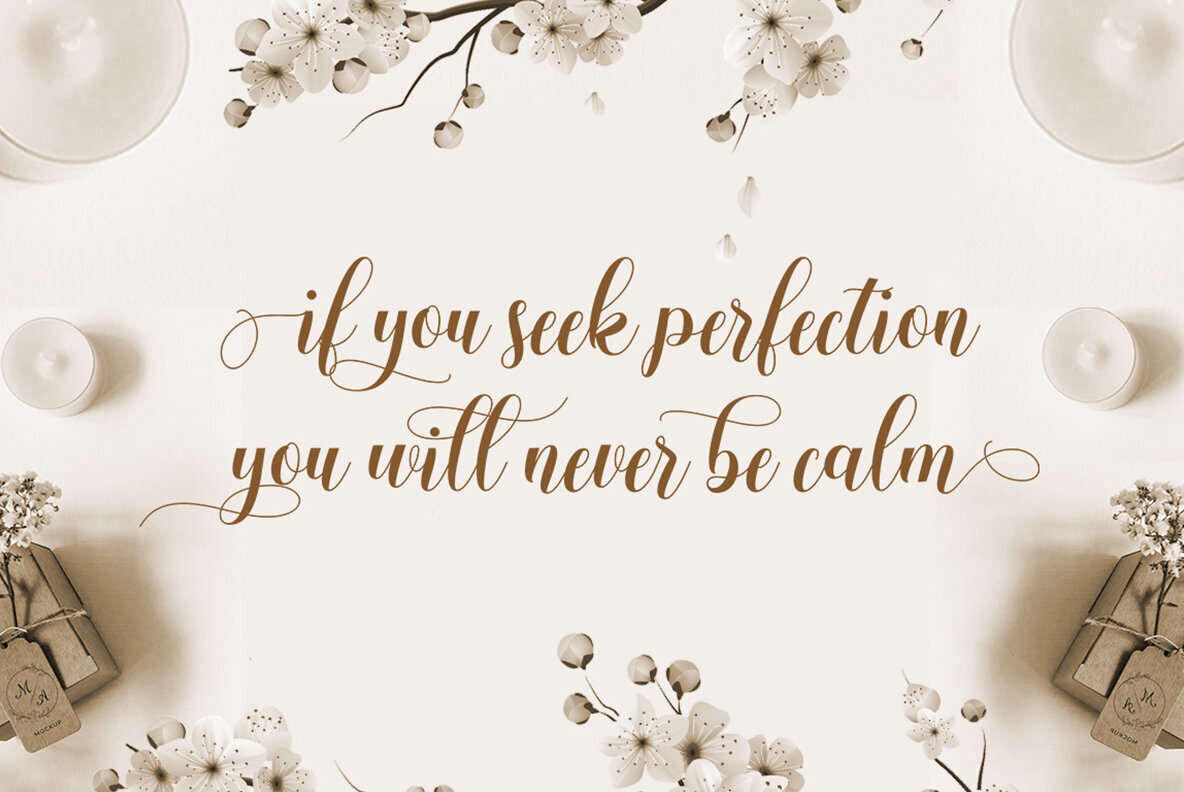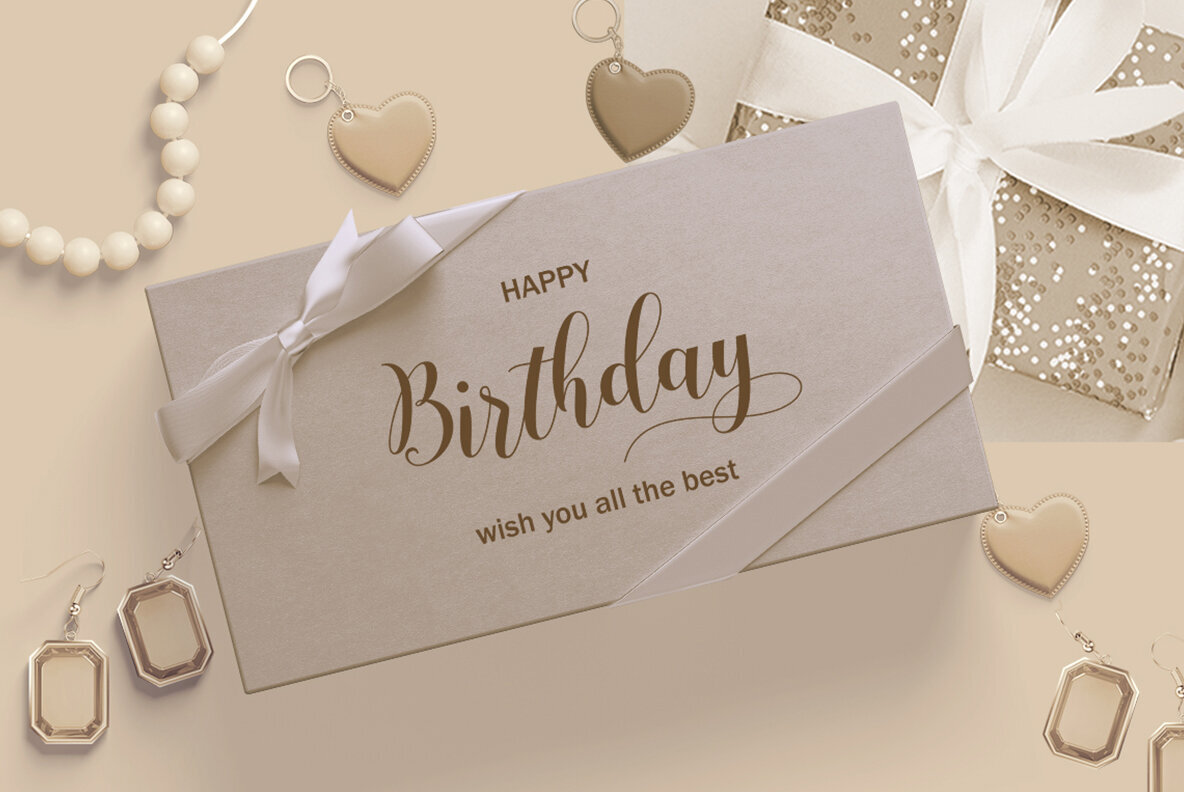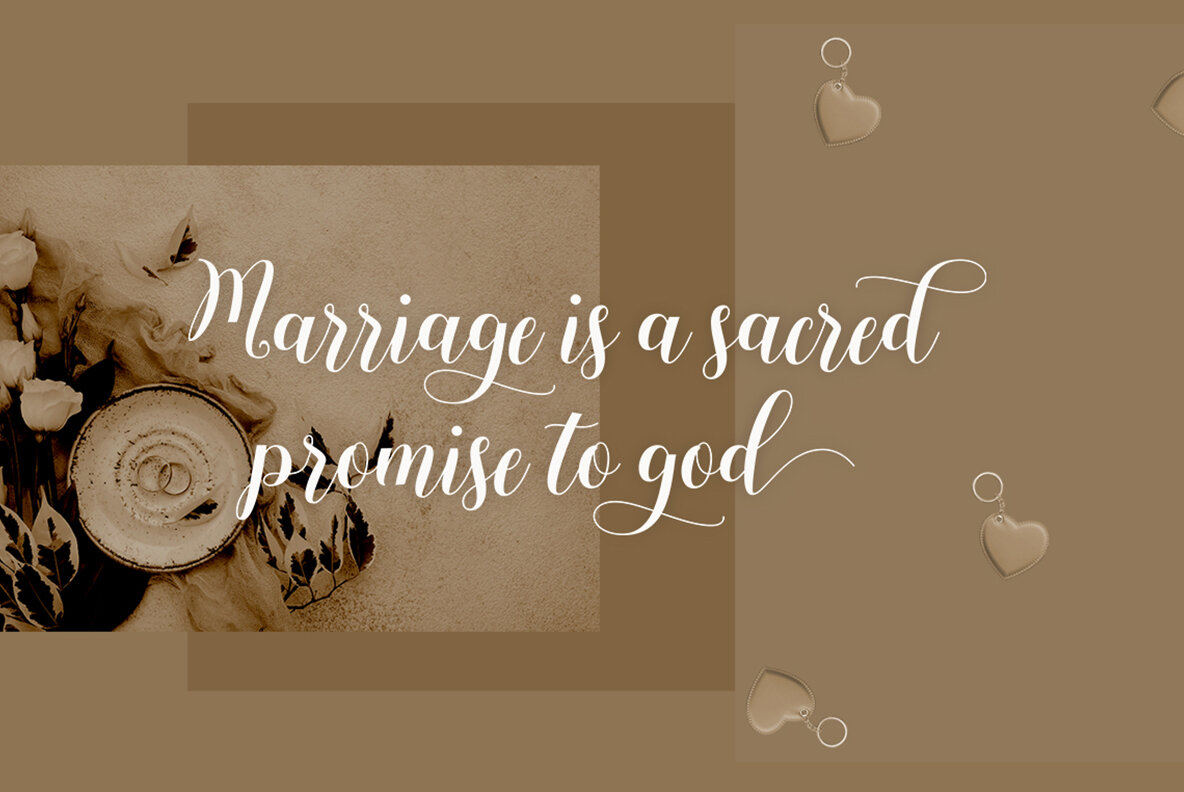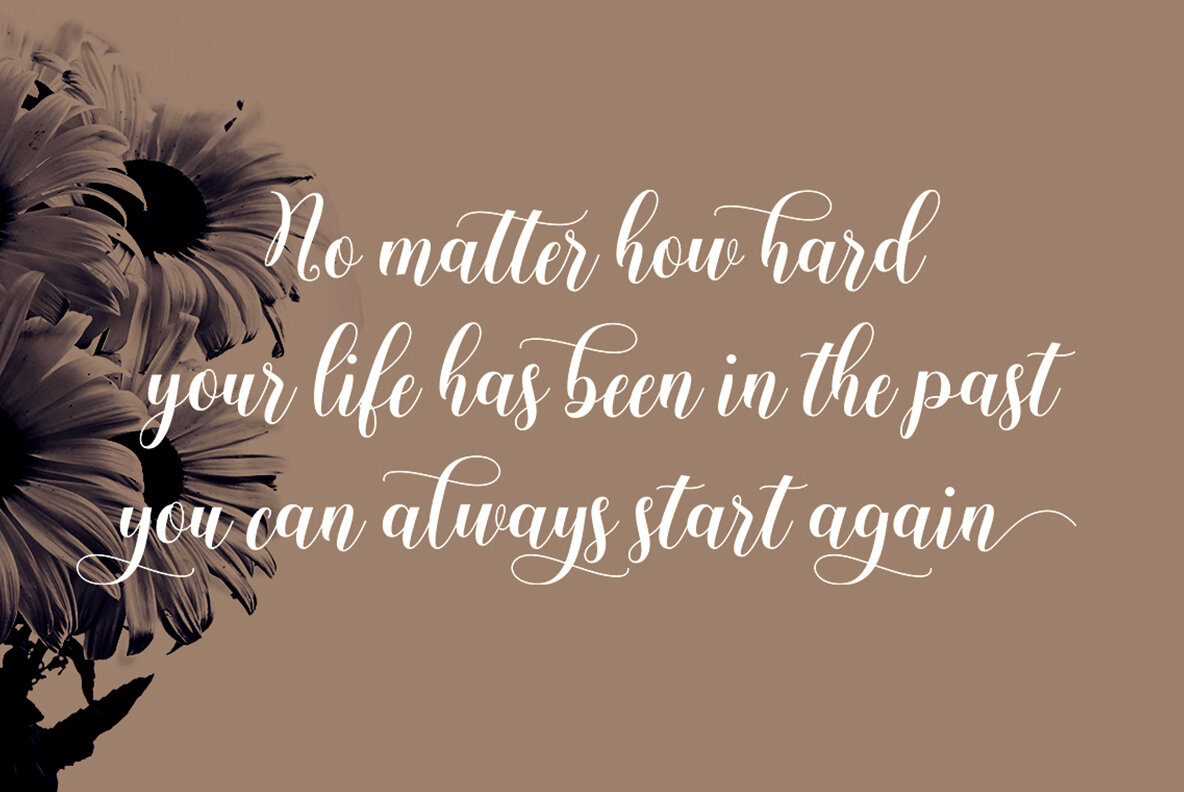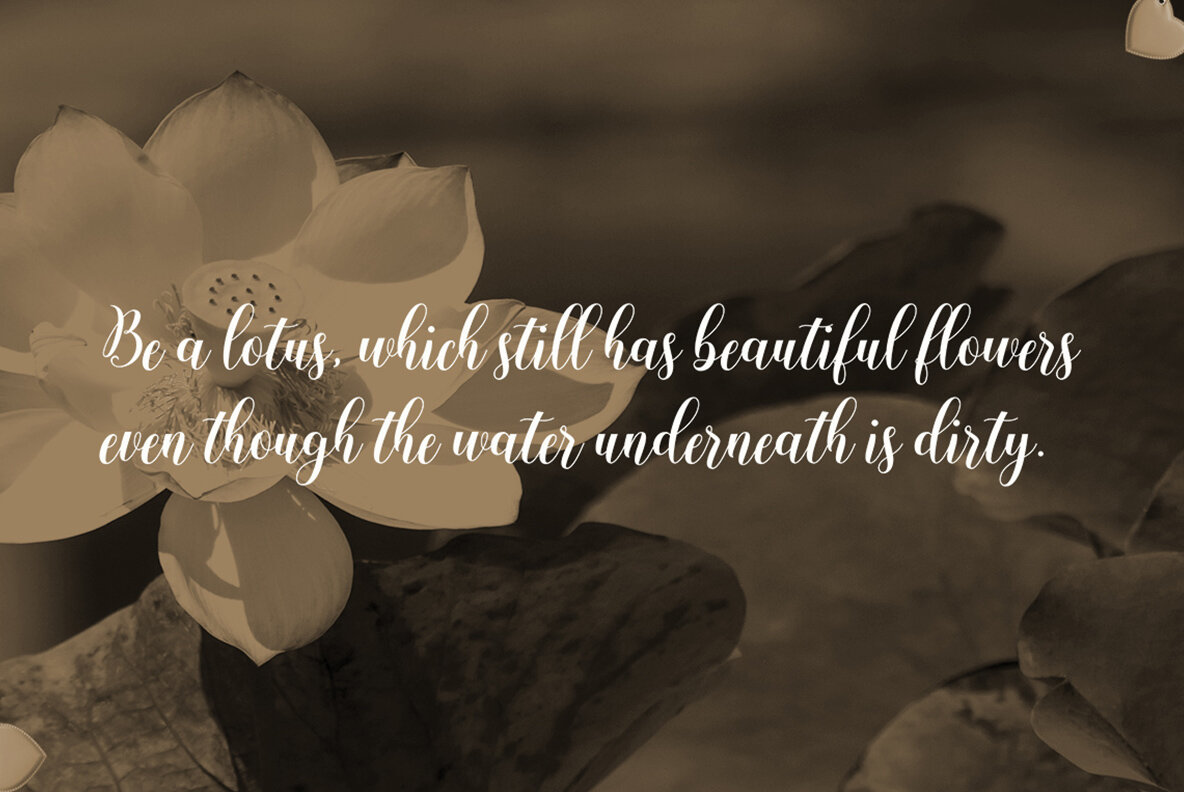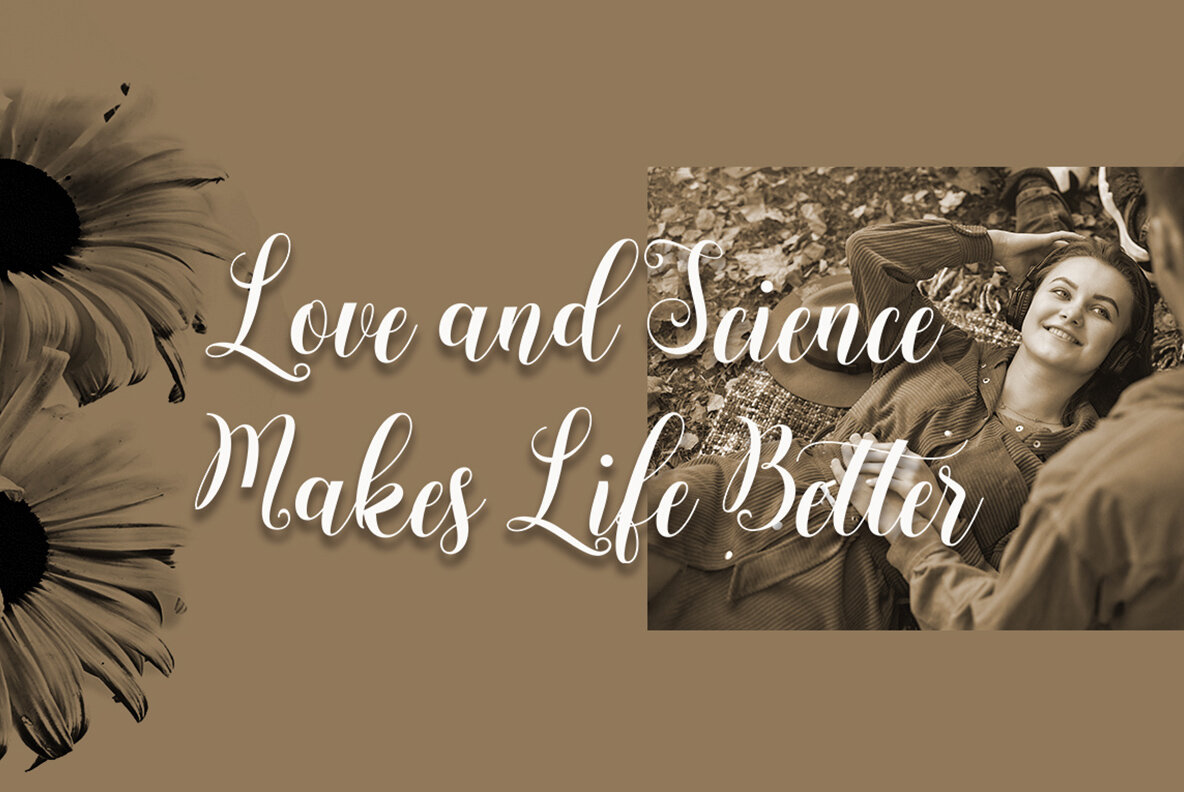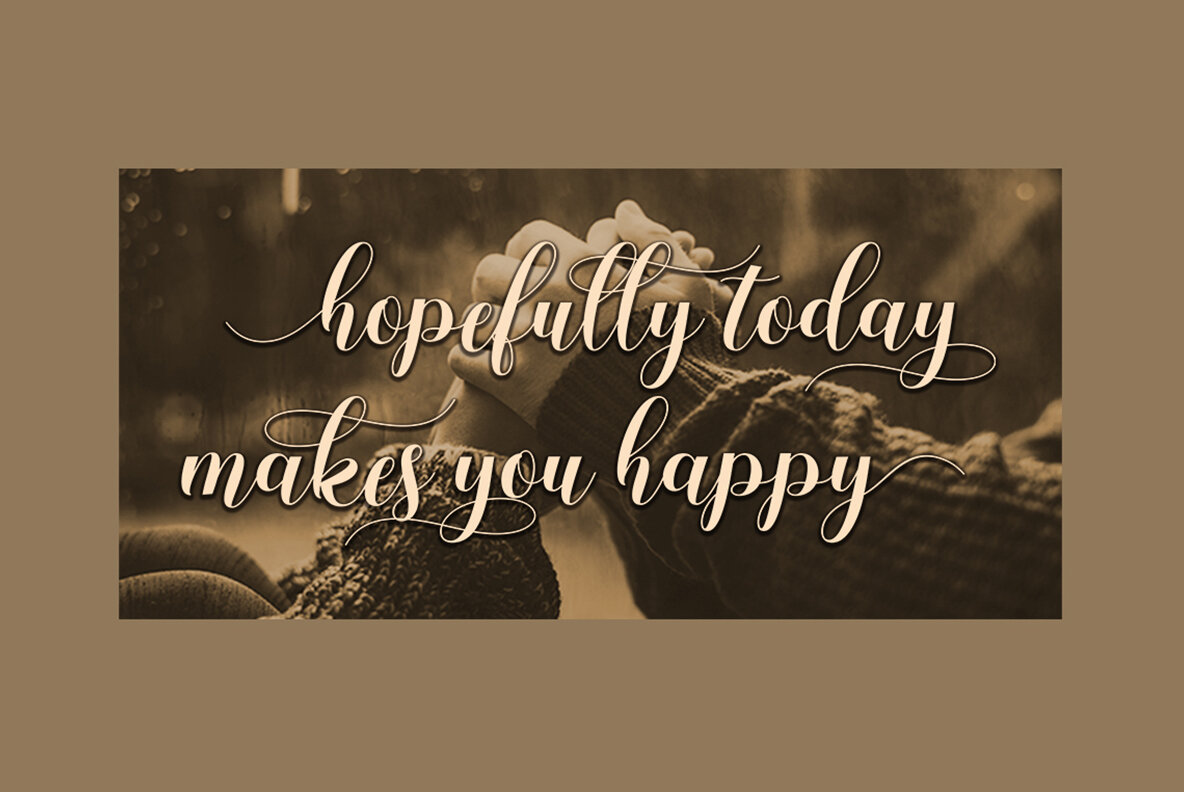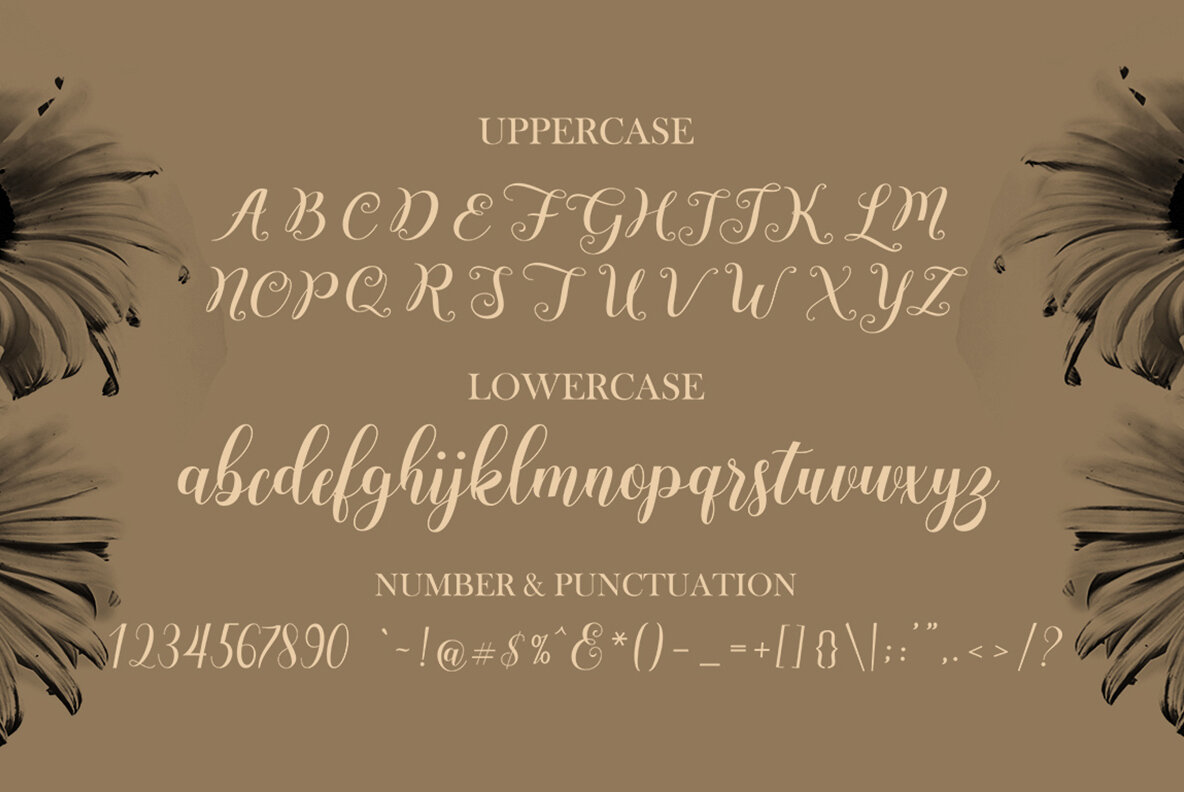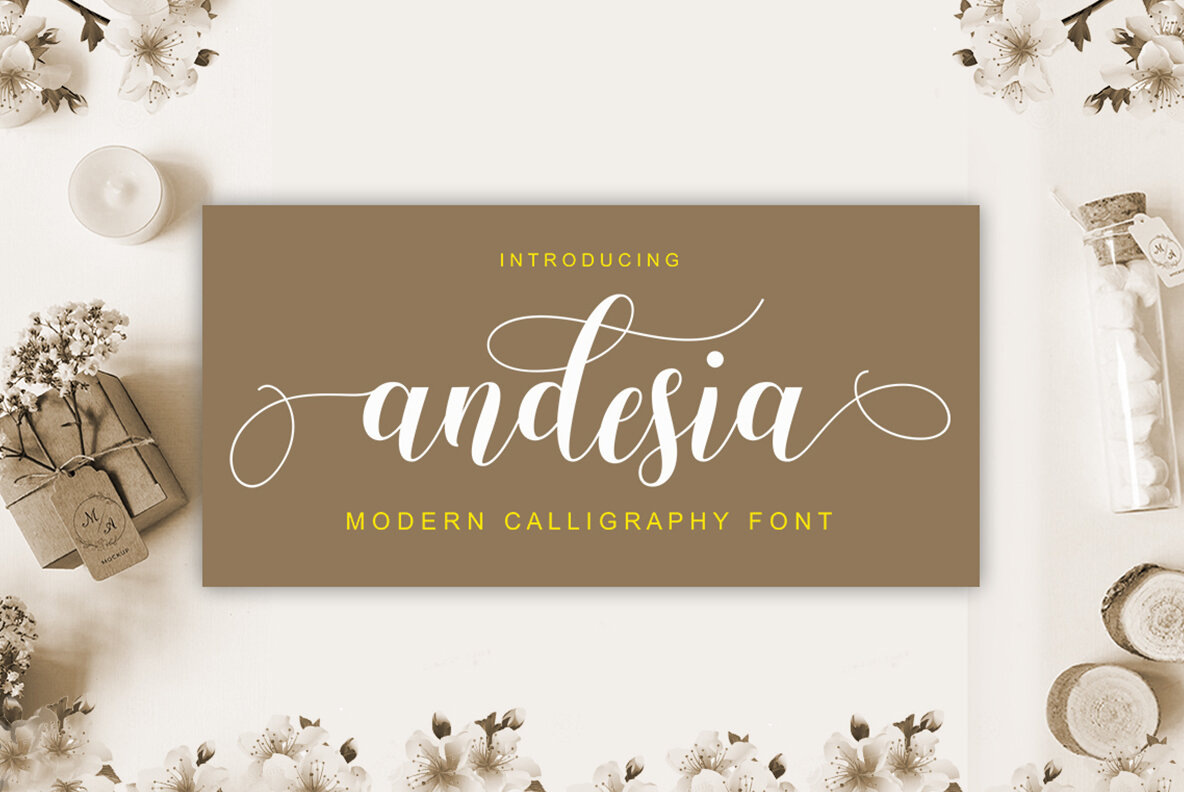
Andesia Font
Andesia Regular
Andesia Script offers a delightful blend of softness and sweetness in calligraphy. With characters that gracefully dance along the baseline, it brings a casual yet elegant touch to any project. Ideal for a wide range of applications, it can enhance logos, wedding invitations, headlines, t-shirts, letterheads, signage, labels, news articles, posters, and badges.Andesia Script: Soft and Sweet Calligraphy Typeface